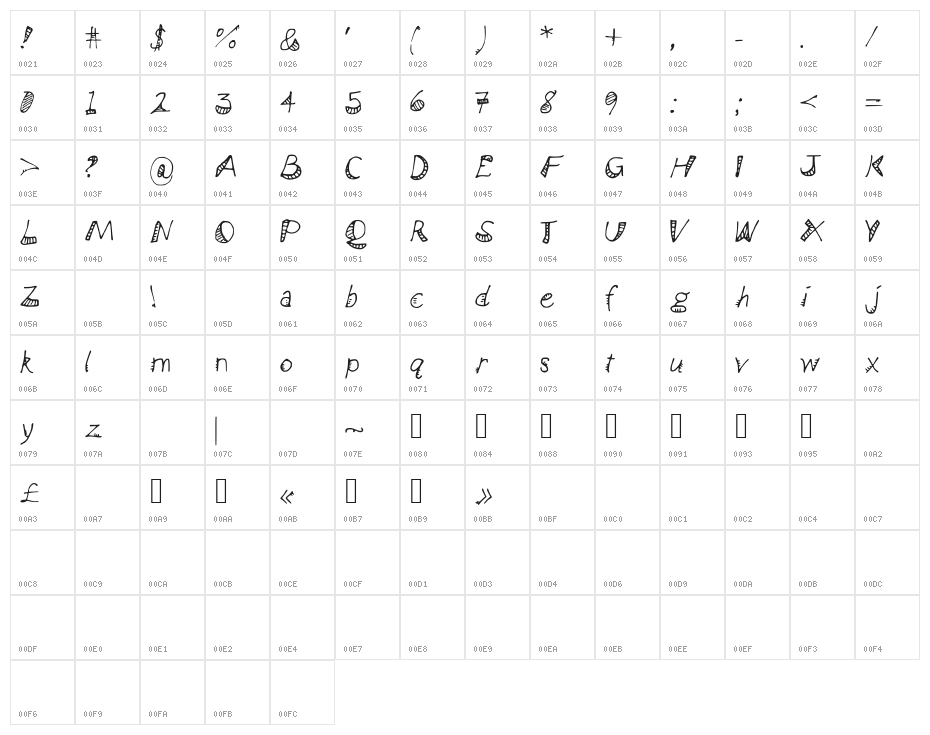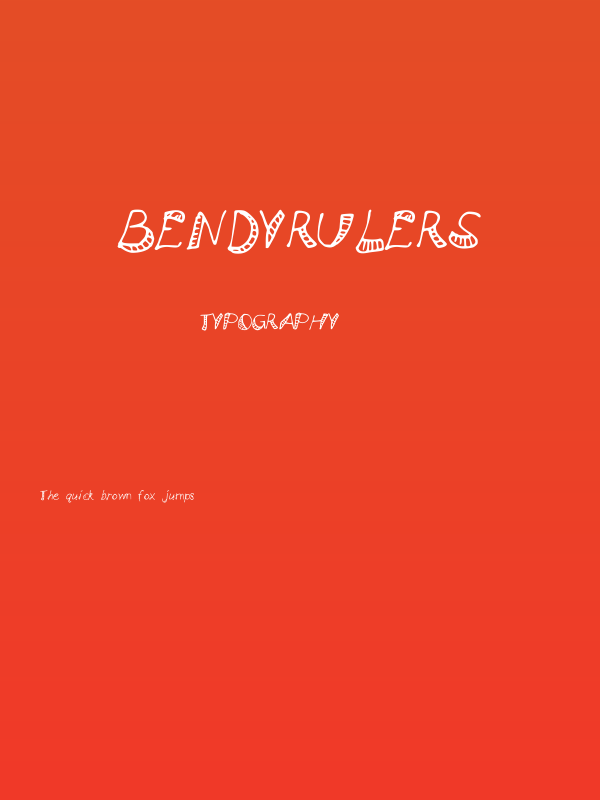
BendyRulers Font
BendyRulers Description
This playful and whimsical font features a unique hand-drawn style with a quirky, cartoonish flair. Each character is adorned with decorative elements, such as stripes and dots, giving it a lively and dynamic appearance. The letters have an irregular, organic shape that adds to the font's charm and creativity. The overall design is bold and eye-catching, making it perfect for projects that require a fun and informal touch. The font's distinctive style is ideal for children's books, playful branding, or any design that aims to convey a sense of joy and imagination.
| Overall Style | Whimsical, Playful, Creative |
| Proposed Projects | Children's books, playful branding, creative posters, or any design needing a fun touch. |